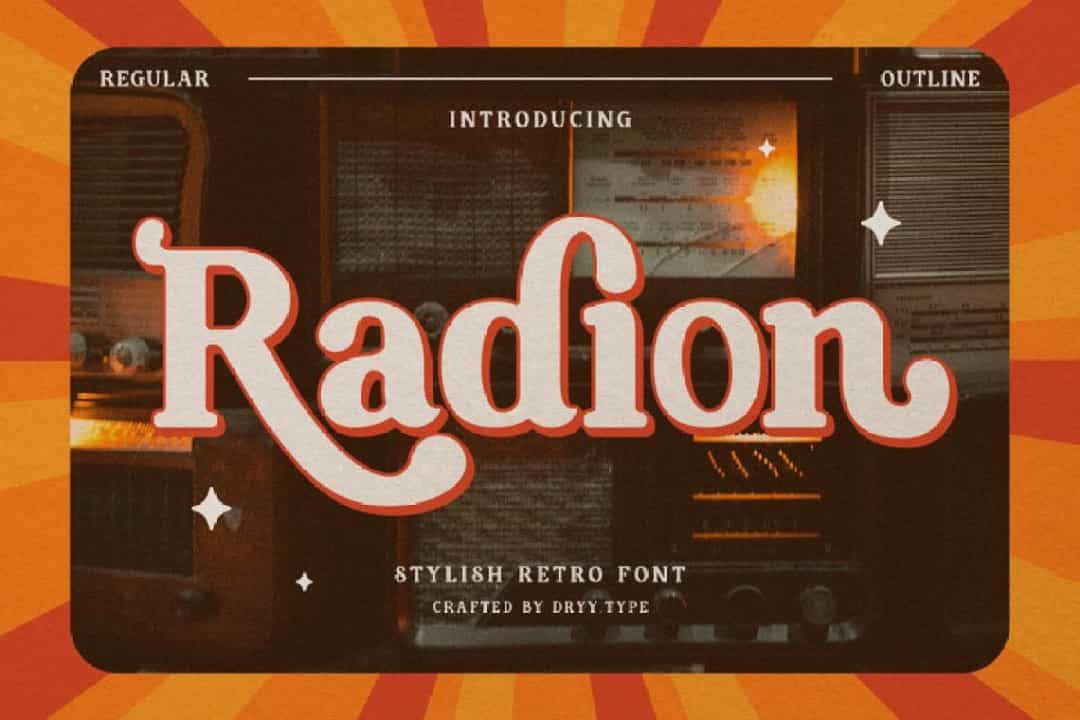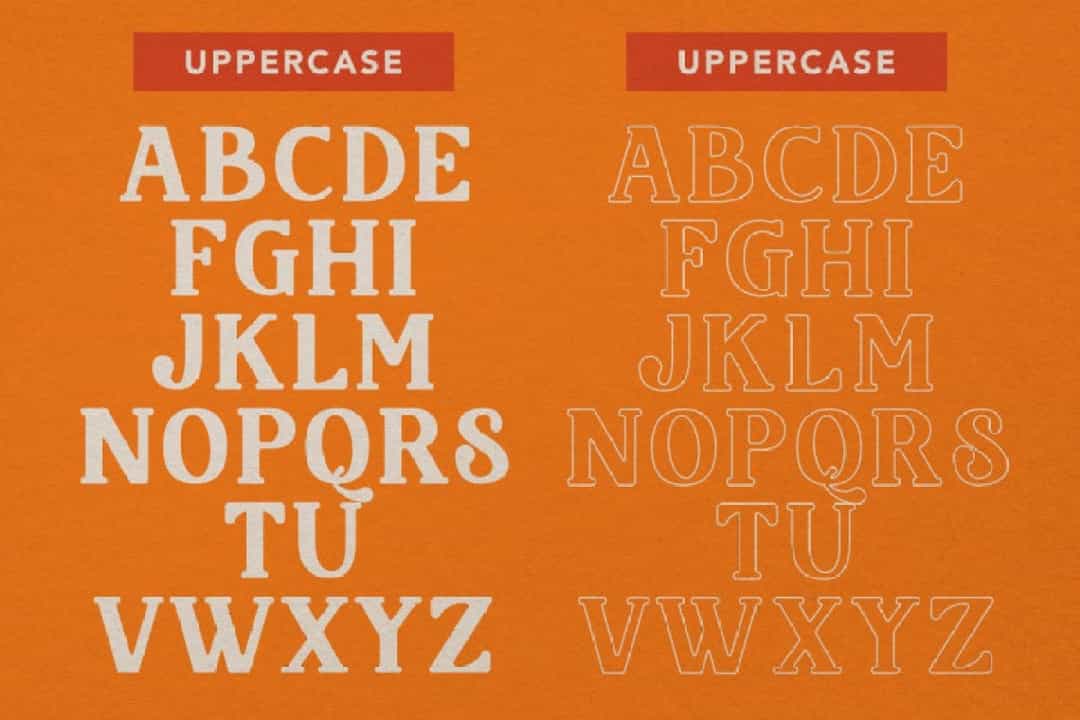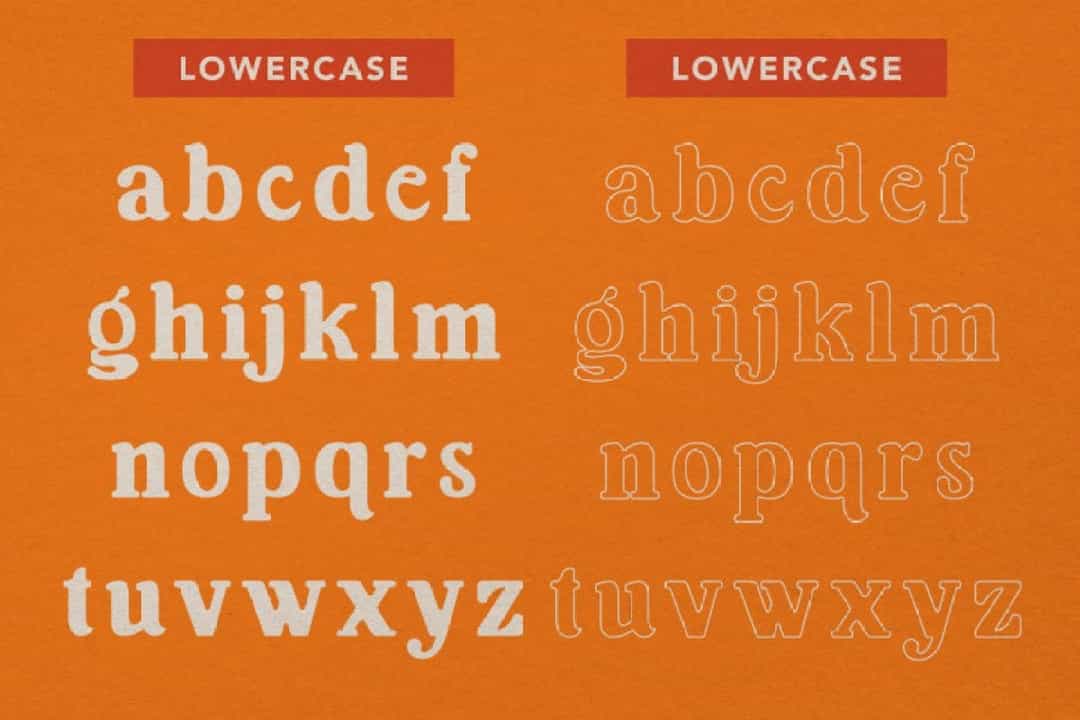
Discover Radion Font, part of the Serif Retro collection—a versatile and unique font perfect for adding a personal touch to your projects. Download it for free and enjoy crafting designs with style, from invitations to social media posts. This font is available exclusively for personal use, giving you the freedom to create without limits. Unlock your creativity with Radion Font today!
Radionis is a vintage retro serif font packed with ligatures and alternates that is both meaningful and versatile, working perfectly across various styles to elevate it to the top of its field. Use Radionis in all your creative ideas and see it come to life!